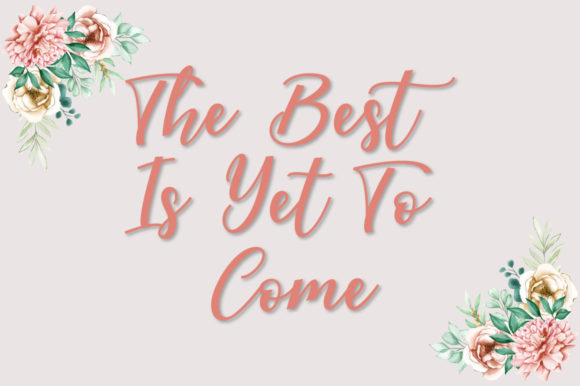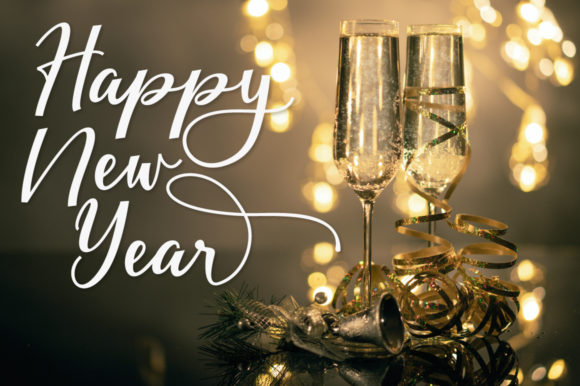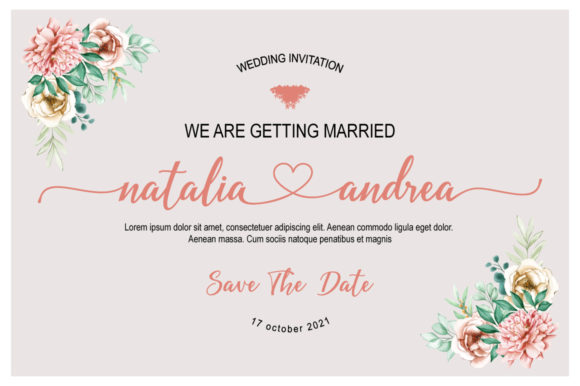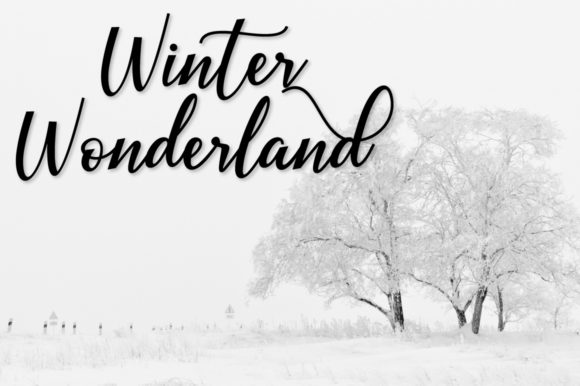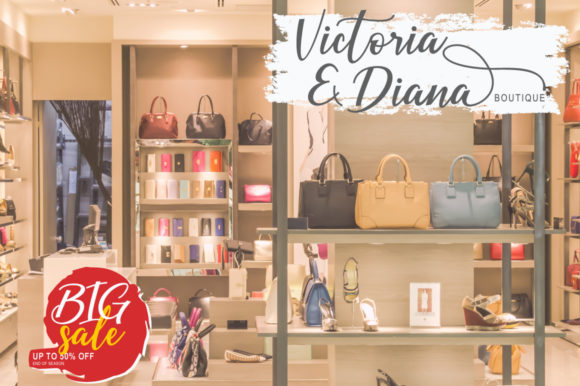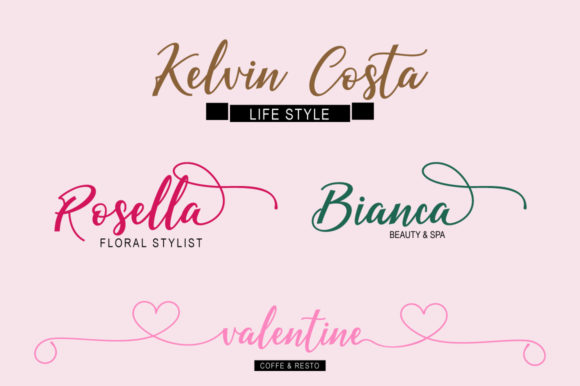
Falling in Love Font: Elevate Your Designs with a Stylish Touch
Are you tired of using the same old fonts for your designs? Do you want to add a touch of elegance and sophistication to your headlines and logotype projects? Look no further than the Falling in Love font, a gorgeous and bold handwritten font that is sure to capture your audience’s attention.
What is Falling in Love Font?
Falling in Love font is a beautifully crafted handwritten font that is designed to give your designs a stylish and romantic touch. With its bold and elegant strokes, this font is perfect for creating stunning headlines, logotypes, and other design elements that require a personal touch.
Key Features of Falling in Love Font
- PUA Encoded: Falling in Love font is PUA encoded, which means you can access all of the amazing glyphs and ligatures with ease. This makes it easy to use and customize the font to suit your design needs.
- Handwritten Style: The font features a beautiful handwritten style that is both elegant and sophisticated. It’s perfect for creating designs that require a personal touch.
- Bold and Eye-catching: The font is bold and eye-catching, making it perfect for headlines and logotype projects that require a font that can stand out.
- High-quality Design: The font is designed with high-quality and precision, ensuring that it looks great in any design.
Why Choose Falling in Love Font?
There are many reasons why you should choose Falling in Love font for your design projects. Here are a few:
- Unique and Creative: The font is unique and creative, allowing you to create designs that stand out from the crowd.
- Elegant and Sophisticated: The font features an elegant and sophisticated style that is perfect for creating designs that require a touch of class.
- Easy to Use: The font is easy to use and customize, thanks to its PUA encoding.
- Versatile: The font is versatile and can be used for a wide range of design projects, from headlines and logotypes to packaging and branding.
Tips and Tricks for Using Falling in Love Font
Here are a few tips and tricks for using Falling in Love font:
- Use it for Headlines: Use the font for headlines and titles to create a bold and eye-catching look.
- Mix and Match: Mix and match the font with other fonts to create a unique and creative look.
- Pay Attention to Kerning: Pay attention to kerning and spacing to ensure that the font looks great in your design.
Falling in Love font is a gorgeous and bold handwritten font that is perfect for designers and crafters who want to add a touch of elegance and sophistication to their designs. With its PUA encoding, handwritten style, and bold and eye-catching design, this font is sure to capture your audience’s attention. Whether you’re creating headlines, logotypes, or other design elements, Falling in Love font is a great choice.